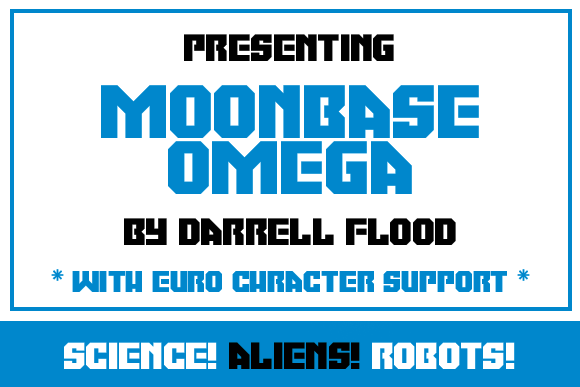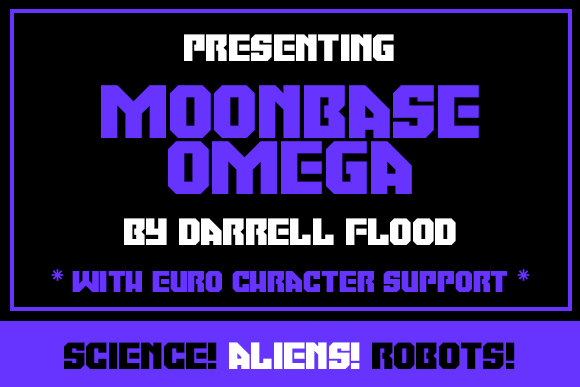
Introduction to Moonbase Omega Font
Moonbase Omega is an angular sci-font in a high impact, ultra-bold style.
Perfect for alien invasions and futuristic projects .